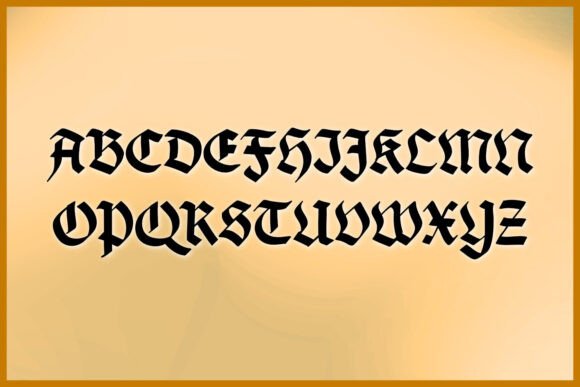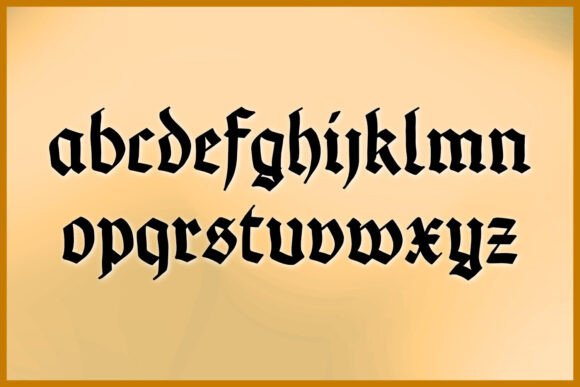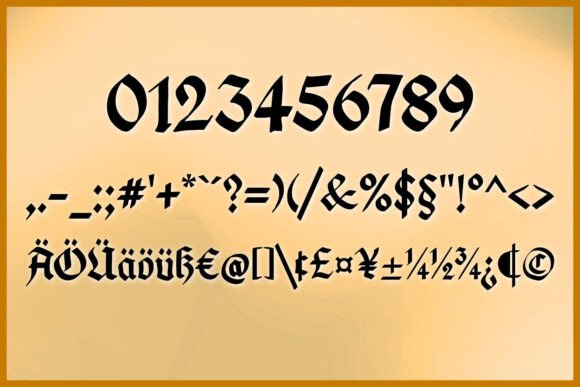
Introduction to Old German Gothic Font
Have you ever been working on a creative project and felt like something was missing – a touch of elegance, a dash of sophistication, or a pinch of whimsy? For designers, finding that perfect design element can be the difference between a good project and a great one. That’s where the Old German Gothic Font comes in – a captivating, handwritten Blackletter font that exudes coolness in every stroke.
This versatile font is not only a design resource but also a high-quality tool that can elevate any project. With extended glyphs for punctuation marks and support for multiple languages, it’s the perfect choice for designers looking to add an impeccable accent to greeting cards, posters, or advertising materials. And the best part? It’s available as a free download, complete with a .otf file, making it easy to integrate into your design visions.
Key Features of Old German Gothic Font
- High-quality, vintage-inspired design perfect for creative projects requiring an authentic medieval feel.
Honest Review: Old German Gothic Font
As a designer, I’ve worked with numerous fonts for various creative projects, and I must say that the Old German Gothic Font has been a valuable addition to my design resource library. Its unique, medieval-inspired design makes it perfect for projects that require a touch of historical elegance.
One of the things that stands out about this font is its versatility. It can be used for a wide range of purposes, from wedding invitations to book covers. The high quality of the font ensures that it looks great on both digital and printed materials, making it a reliable choice for designers.
Here are some of the features that I appreciate about the Old German Gothic Font:
- High quality and crisp design ✨
- May not be suitable for modern, minimalist designs ⚠️
- Some characters may require manual editing to achieve the desired effect
Overall, I’m impressed with the Old German Gothic Font and would highly recommend it to designers who are looking for a unique and high-quality design resource.
The Old German Gothic Font is a unique and high-quality design resource that can add a touch of elegance to your creative project. With its distinctive and ornate style, this font is perfect for those who want to create a memorable impression.
The Old German Gothic Font is perfect for creating invitations, posters, and other promotional materials. Its unique style also makes it ideal for use in historical or cultural projects, such as creating a medieval-themed logo or designing a Gothic-inspired book cover.